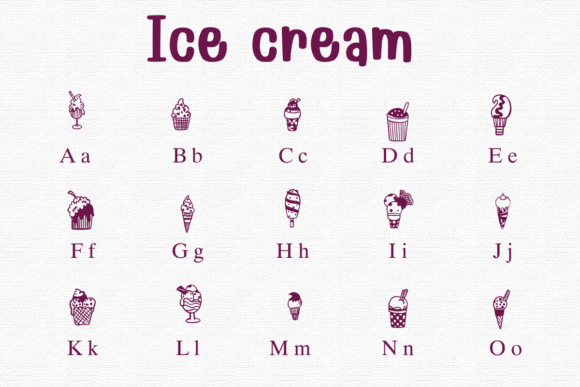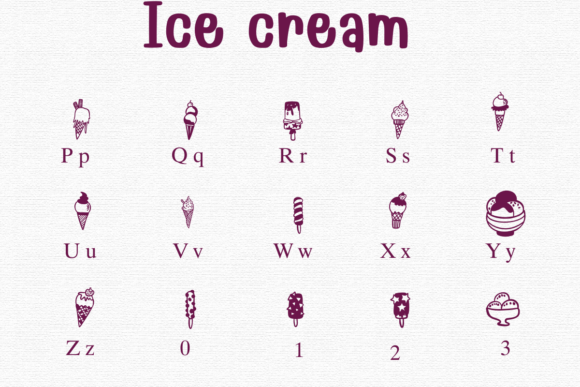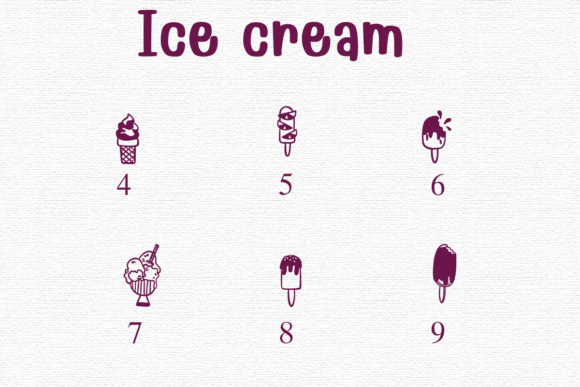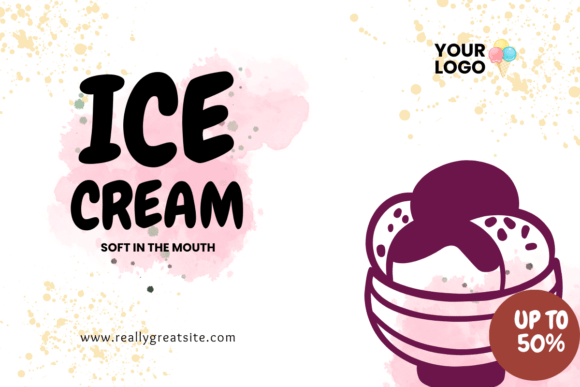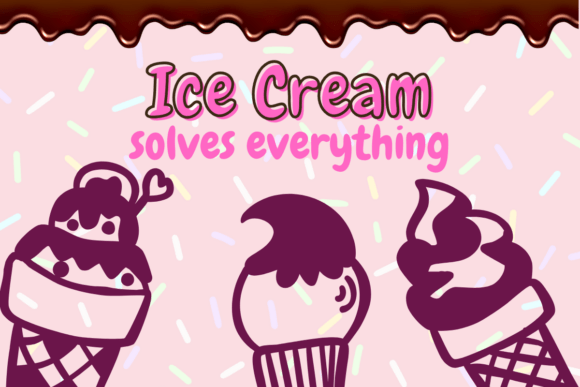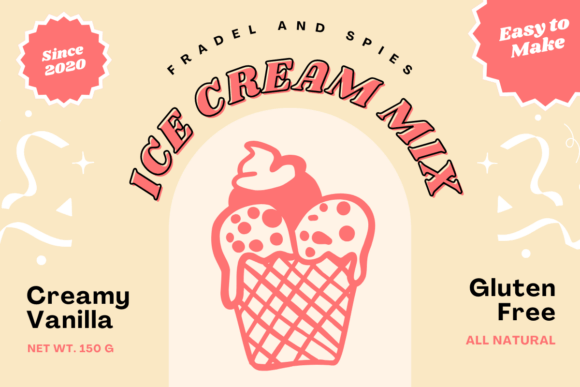
Introduction to Ice Cream Font
Ice Cream is a fun and frosty dingbats font packed with all your favorite frozen treats—cones, scoops, popsicles, sundaes, and more.
Perfect for summer designs, dessert shop branding, kids’ parties, and food-related printables .
Key Features of Ice Cream Font